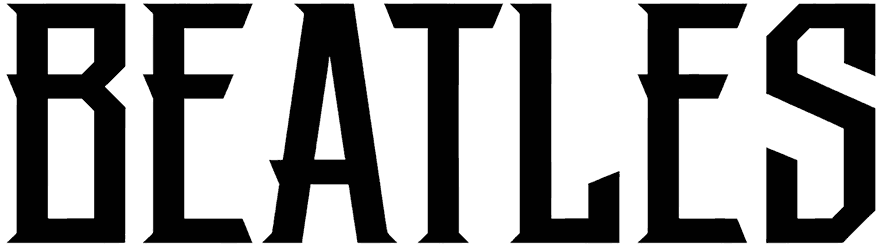
Zanden Font
Zanden’s characters are carefully crafted to convey their own special characteristic, including vintage, eccentricity, and approachability. This all-caps font offers four distinctive styles and broadens your horizons in the middle of bringing your creative ideas, including mobile posters, video game brochures, logos, or menus, to real life. Also, this can be used as a decorative font in editorial projects.